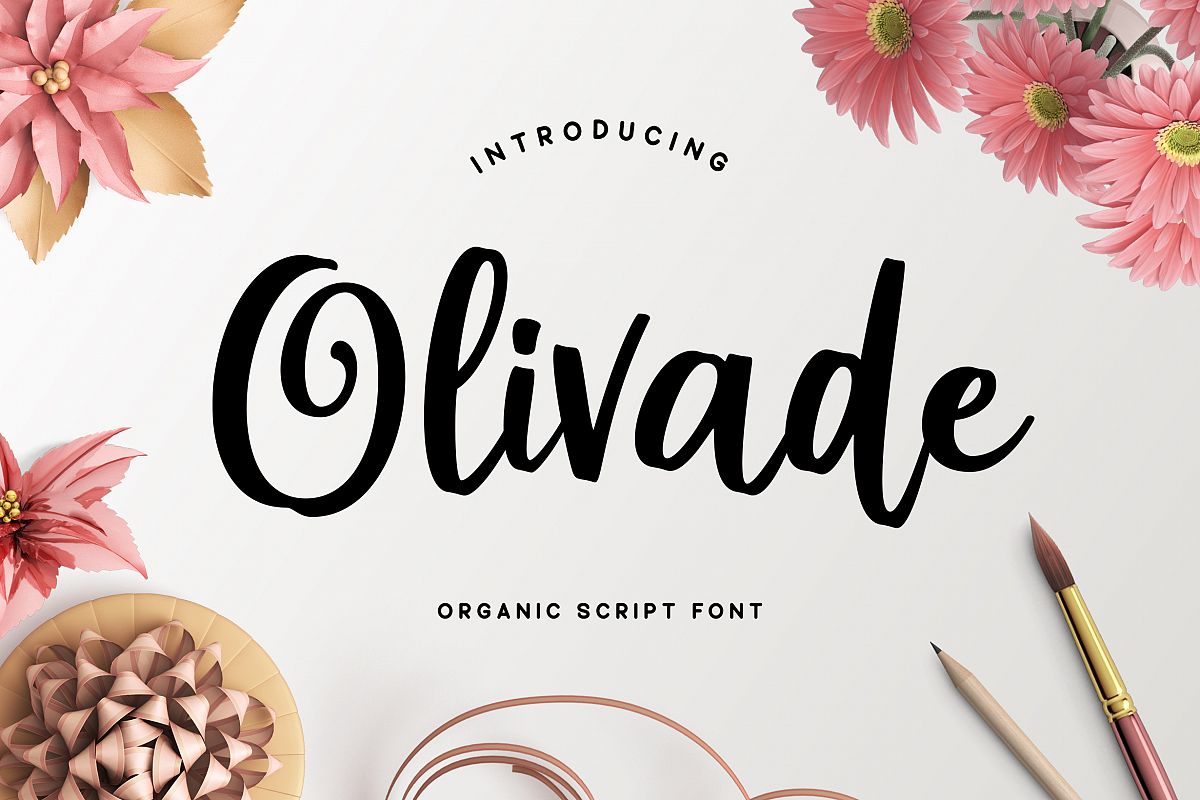
Olivade - Script Font
Olivade
Olivade is a fresh and organic script font crafted very carefully. Olivade is perfect use for a logo for branding, typography design, christmas card, product packaging, invitation, quotes, t-shirt design, label poster, special events and anything that need handwriting taste.